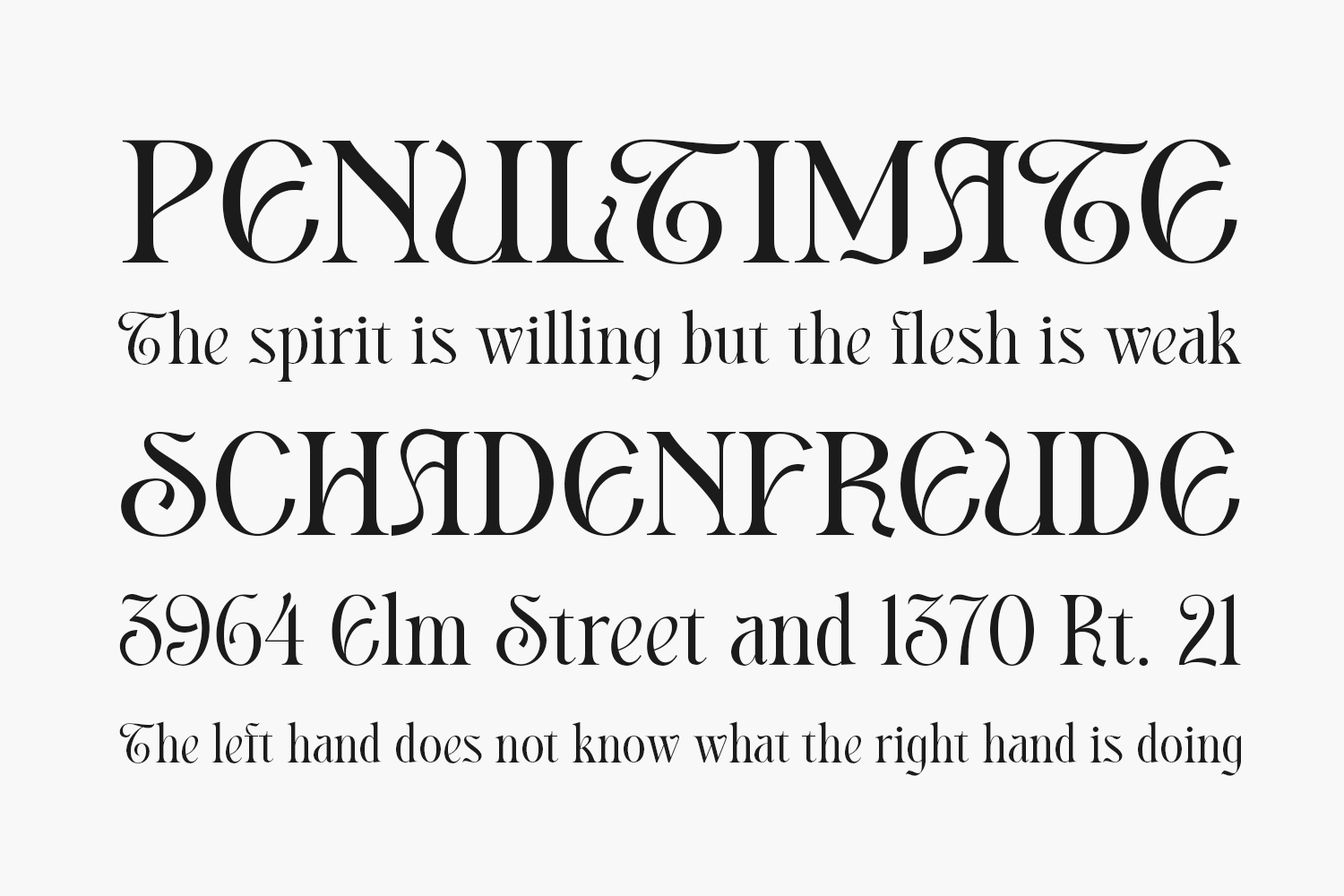
Appears Free Font is a stylish and incredibly elegant serif font. It looks stunning on invitations, thank you cards, quotes, greeting cards, logos, business cards, and every other design which needs a creative touch. Appears Free Font was designed by Letterhend Studio and is free for personal use only. Please purchase the full version for commercial use.